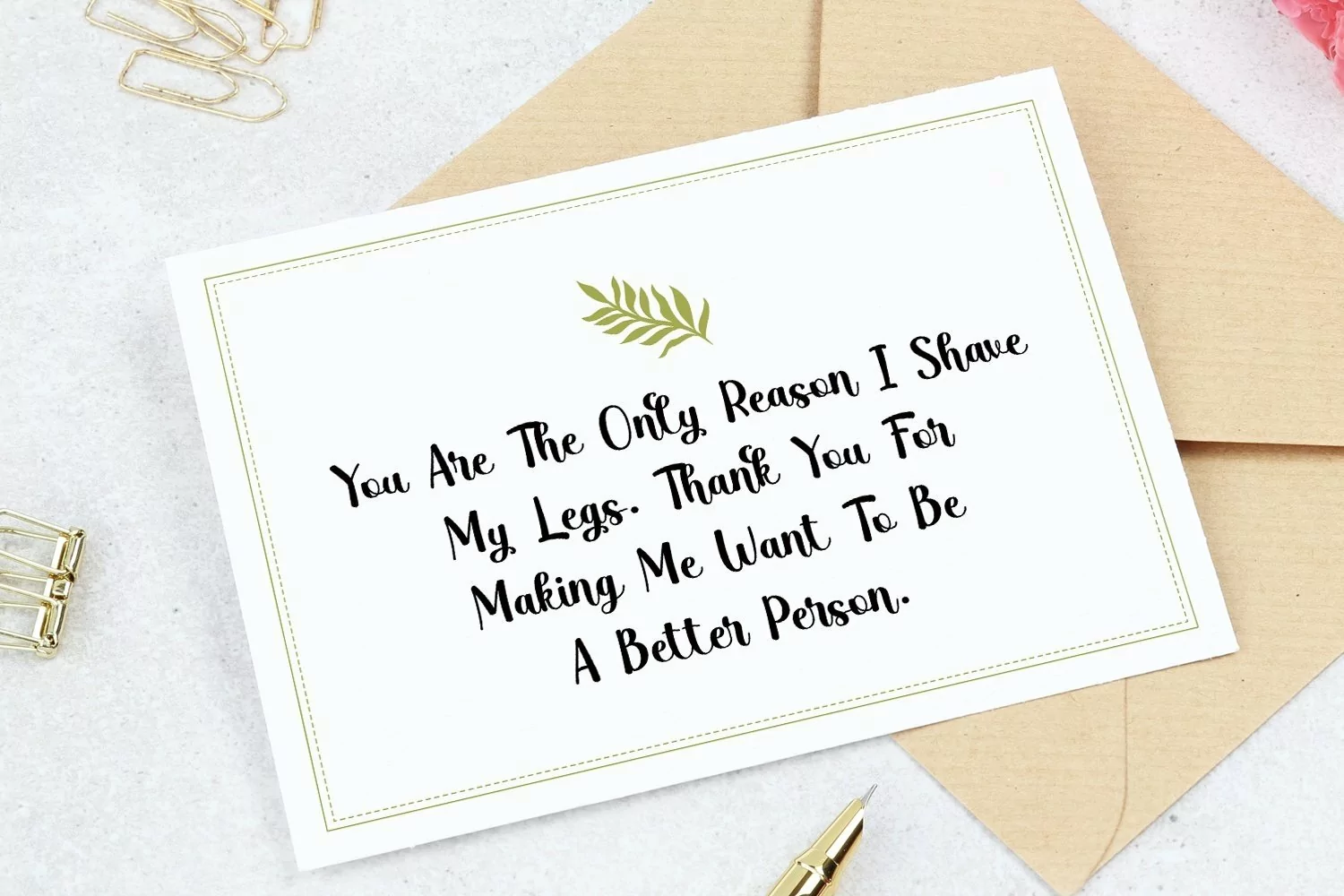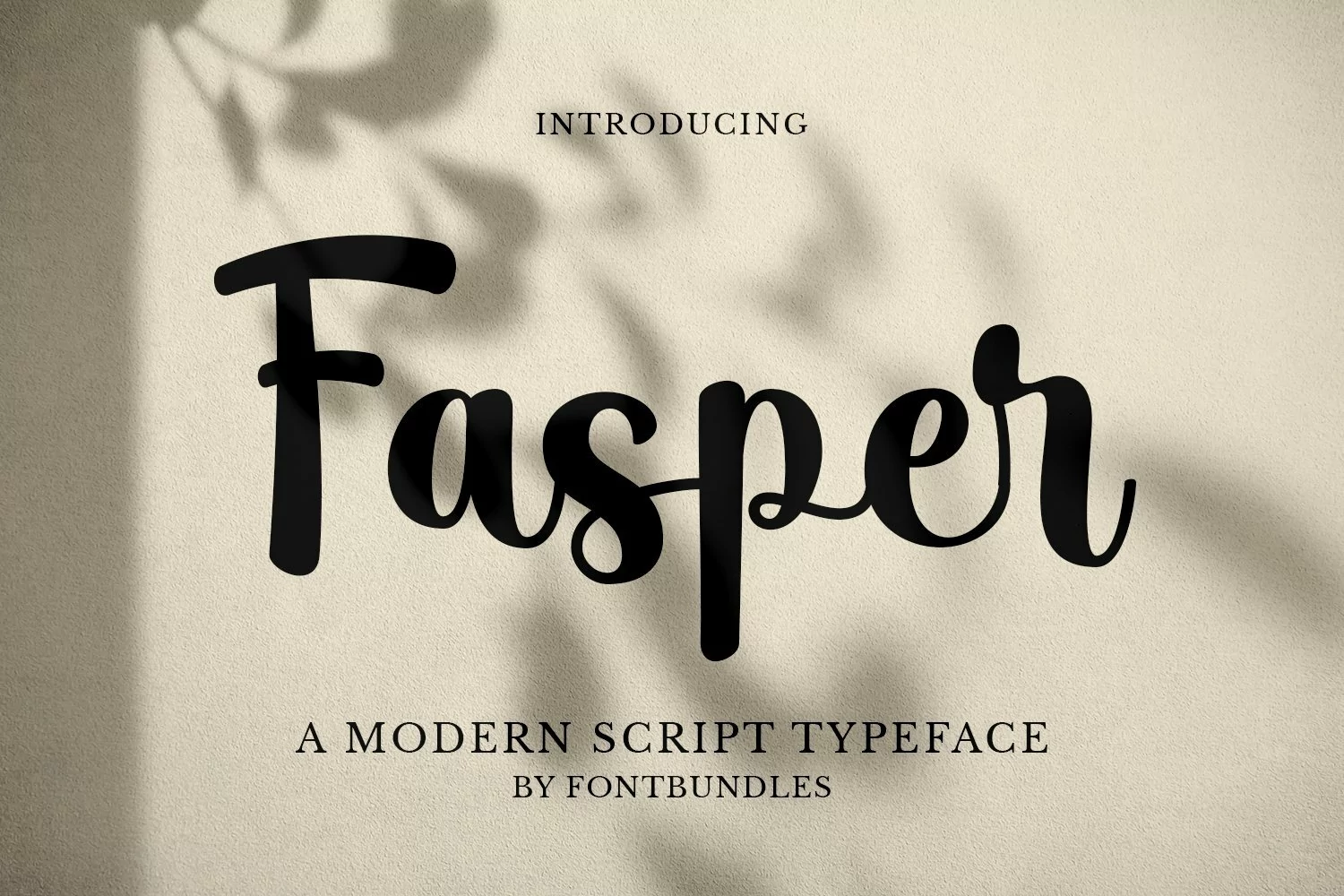
Web Font Fasper
Fasper is a modern script typeface. Perfect for logos, name card, signage, branding, packaging, advertising, greeting card, quotes and more.